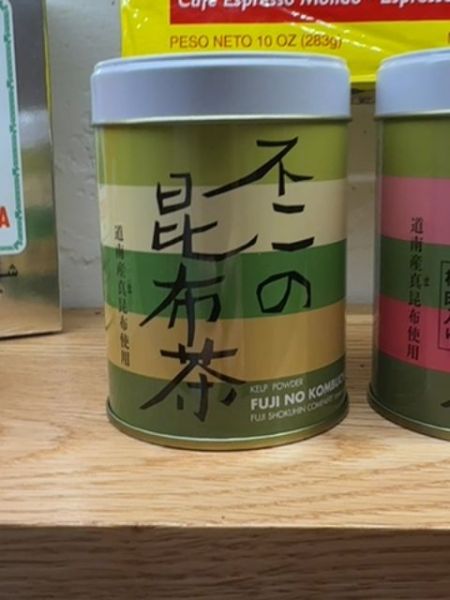
Fuji No Kombu Cha
A kelp powder used to make kombu tea, known for its umami flavor and health benefits.
The typography combines traditional Japanese characters with clean, sans-serif Latin text. The Japanese characters are prominent and bold, reflecting a classic and cultural touch, while the Latin text at the bottom is understated and modern, creating a harmonious blend of tradition and contemporary style.
The packaging is a cylindrical tin with a modern aesthetic, featuring a combination of green and beige tones. It has a sleek, minimalistic design with vertical text elements that draw the eye, presenting an elegant and traditional feel.